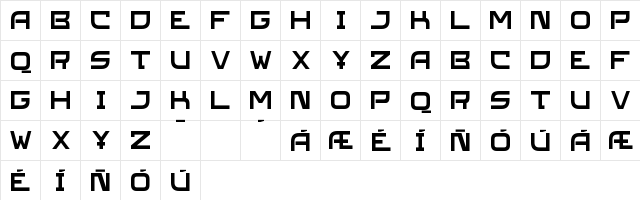
SL Panzerkardinal Regular
Design Context for SL Panzerkardinal Typeface
SL Panzerkardinal is a composed and adaptable typeface that performs quietly and consistently across a wide range of design contexts.
Pro Tip: Use SL Panzerkardinal in both headline and body roles to test its range before committing to a single application.